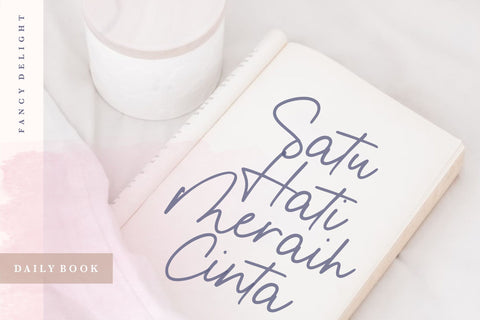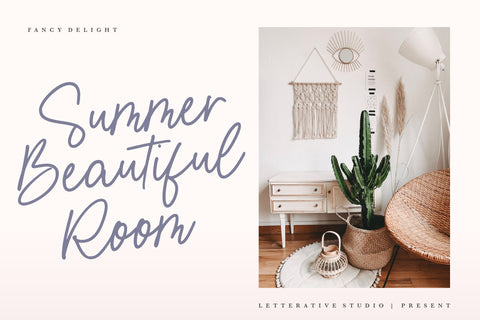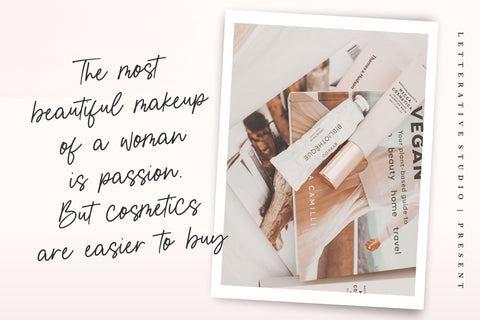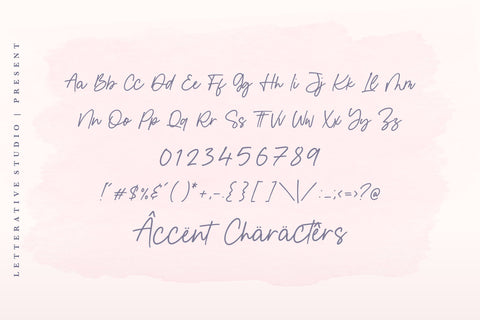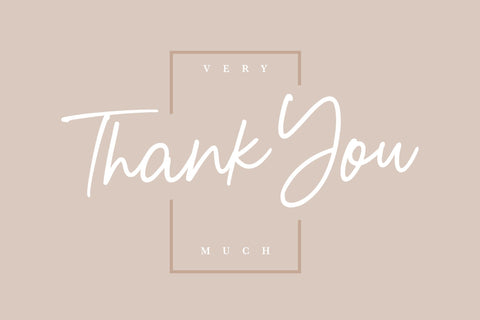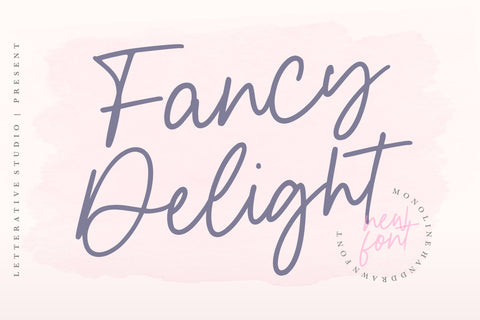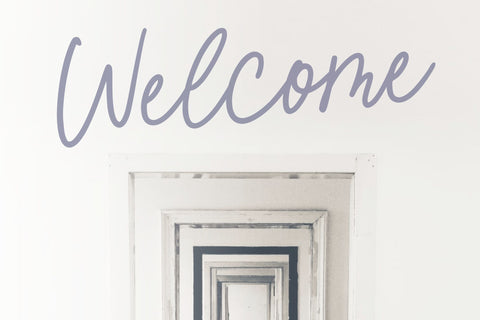
Fancy Delight Monoline Handdraw Font
Fancy Delight is a Monoline Handdraw Font
Fancy Delight feels playfully nostalgic and delivers an incredible romantic aesthetic. Use this handwritten font to add that special touch to any design idea you can think of!
Fancy Delight also multilingual support